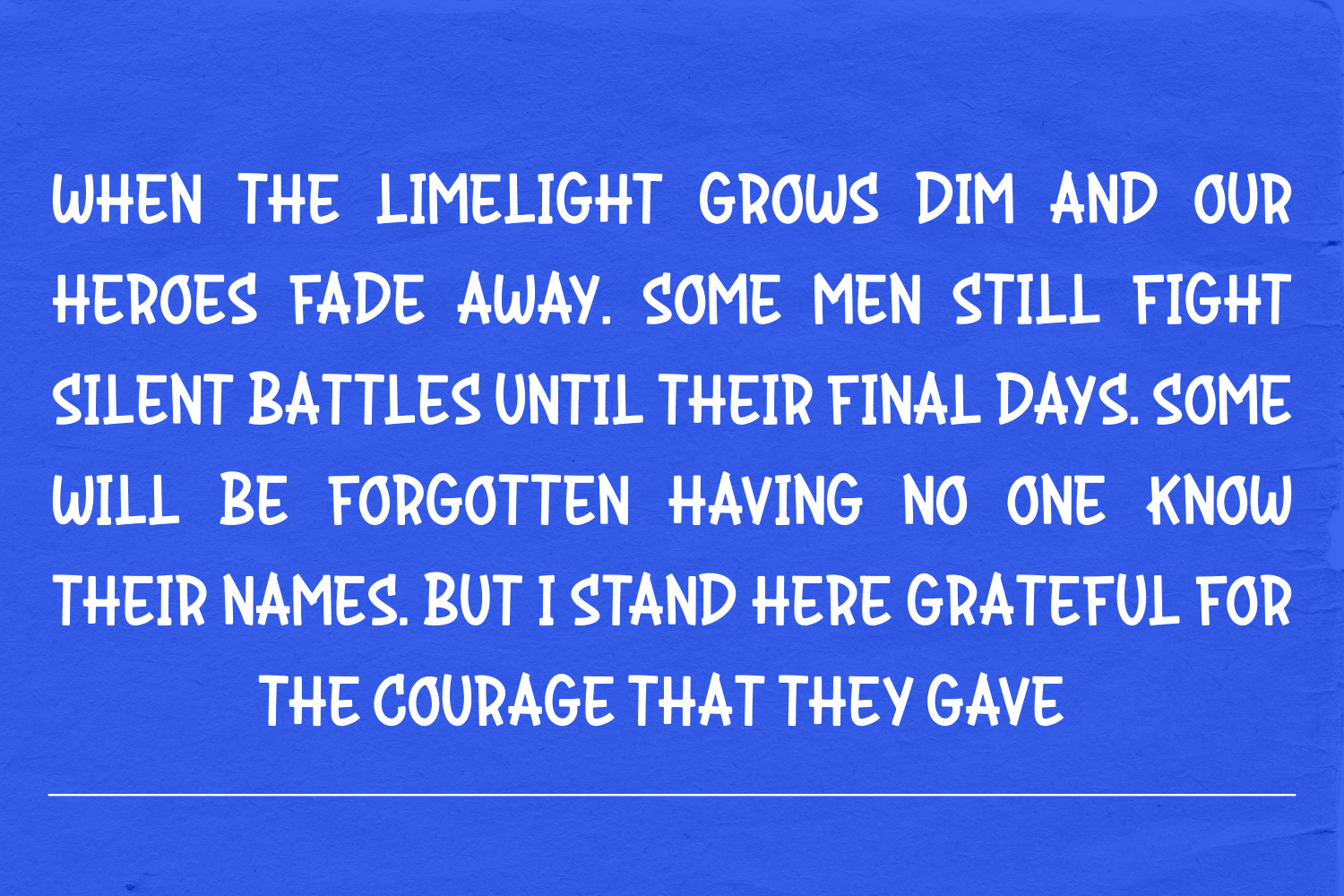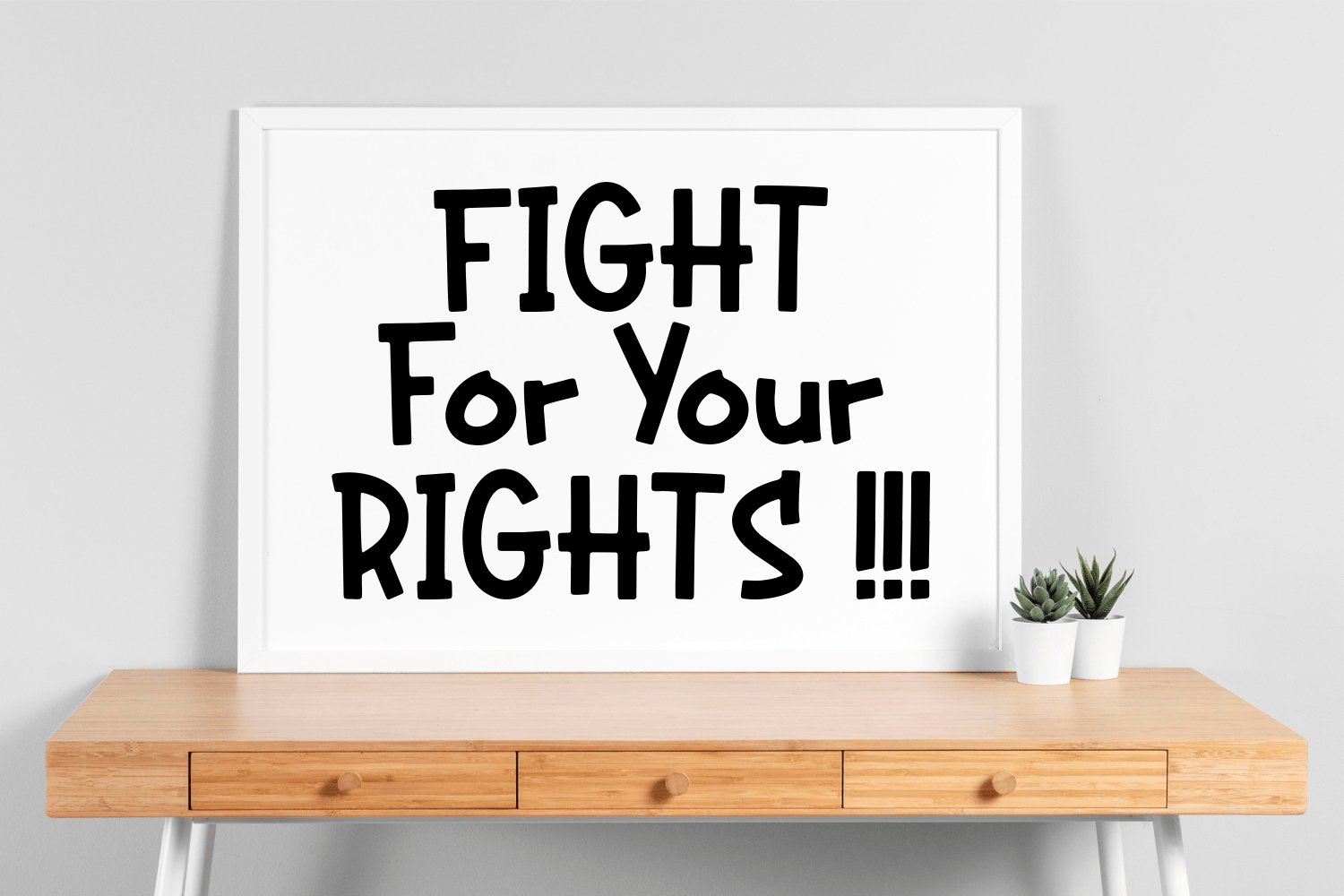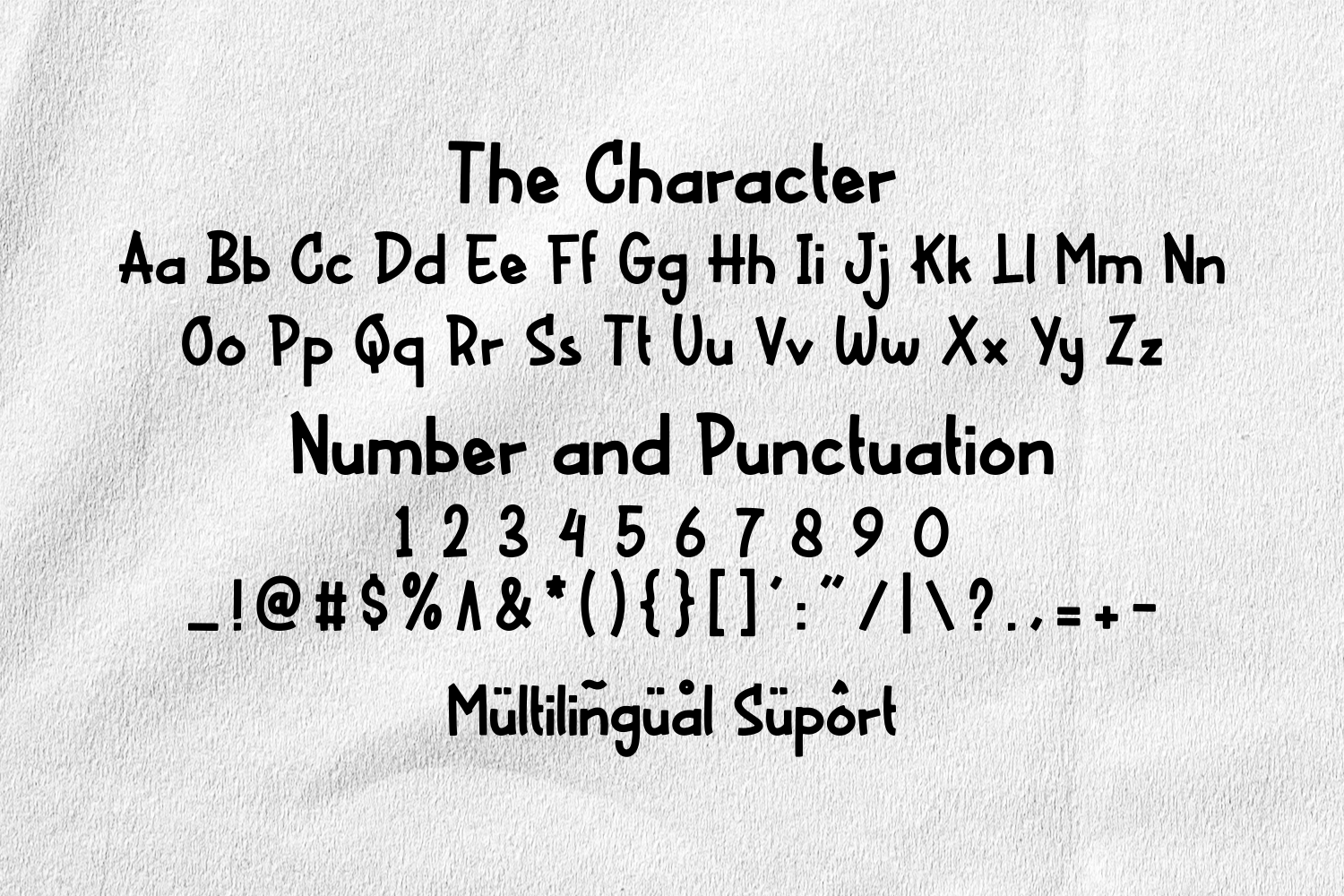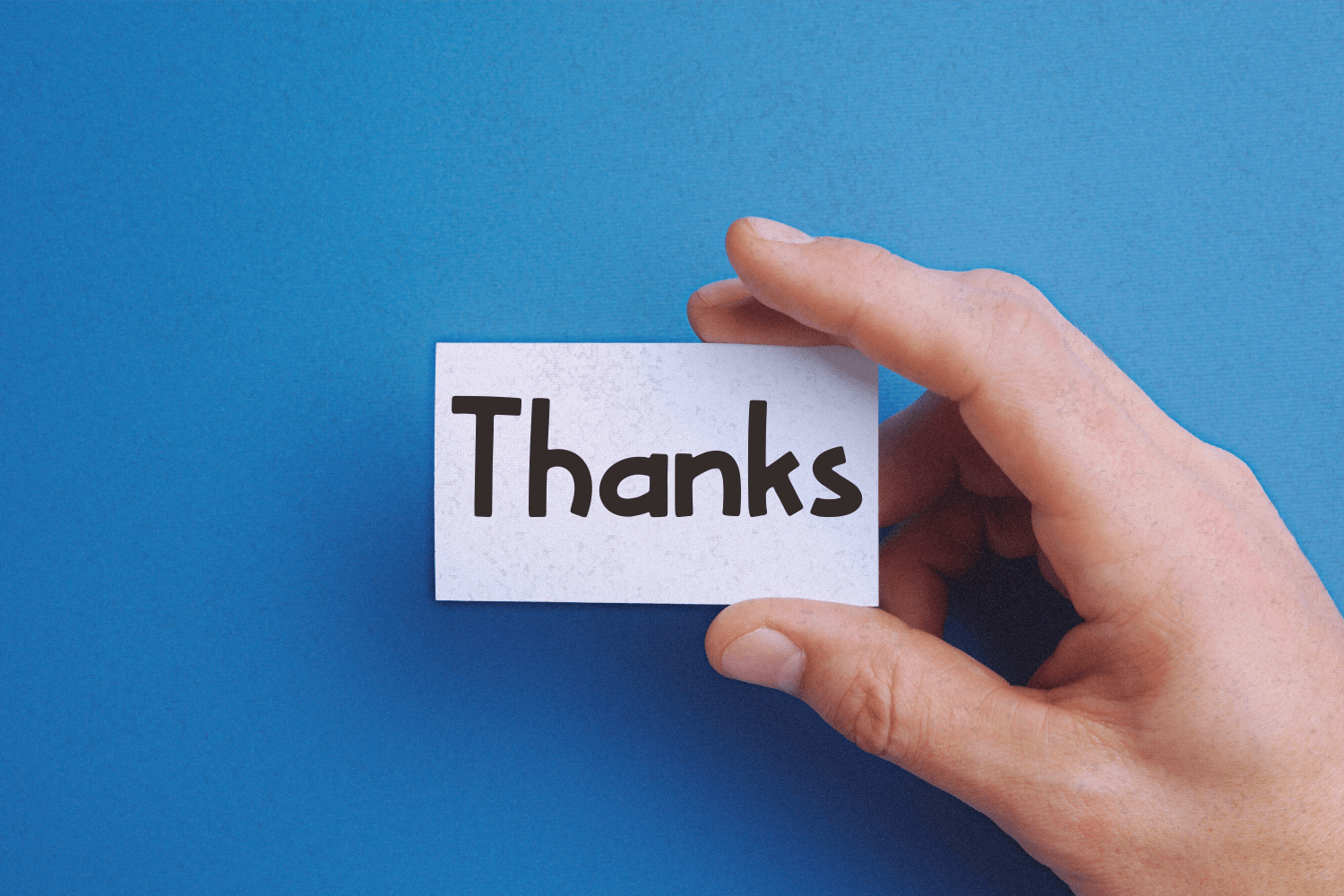
Hot Slice Font
Hot Slice Display Font is a fancy and elegant handwritten font created to impress your audience and make your branding shine. Make your projects dance with this elegant and wonderful font wherever you use it. Use it for your headings, logos, ads, printed quotes, packaging, and even your website or social media branding.